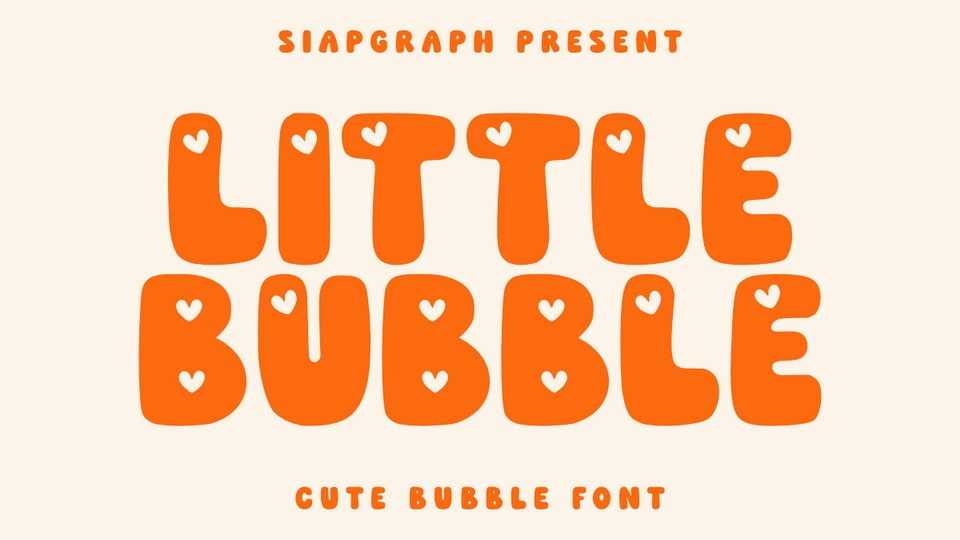
Download Little Bubble font, a cute and chunky bubble hand-drawn typeface with playful curves and heart-shaped details inside each letter.
Designer: SiapGraph